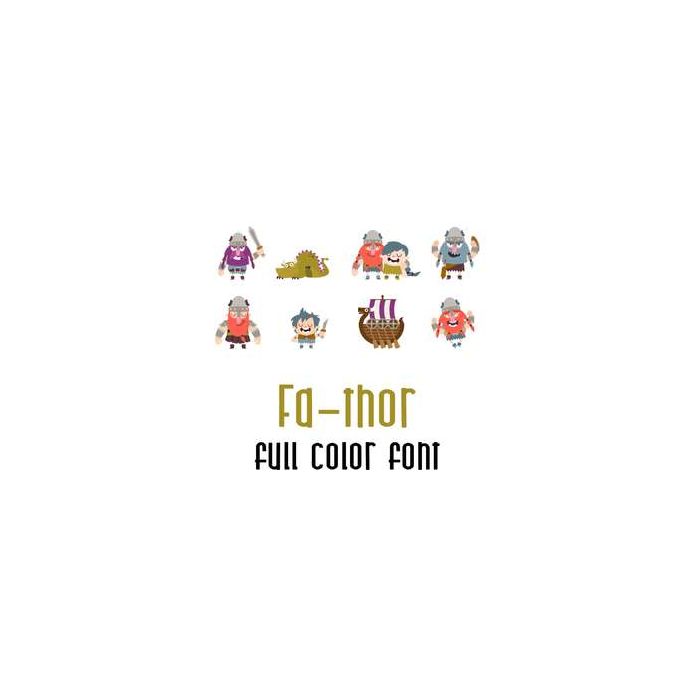
A full-color font stores svg data inside an Open Type font file. This font will look black if not used in a program like Silhouette Studio which is compatible. This adorable full color font features 26 different Viking dads and kids. Perfect for Father's Day, dads, grandpas, uncles and making cards, crafts, gifts, decor, scrap book pages planner stickers and more!